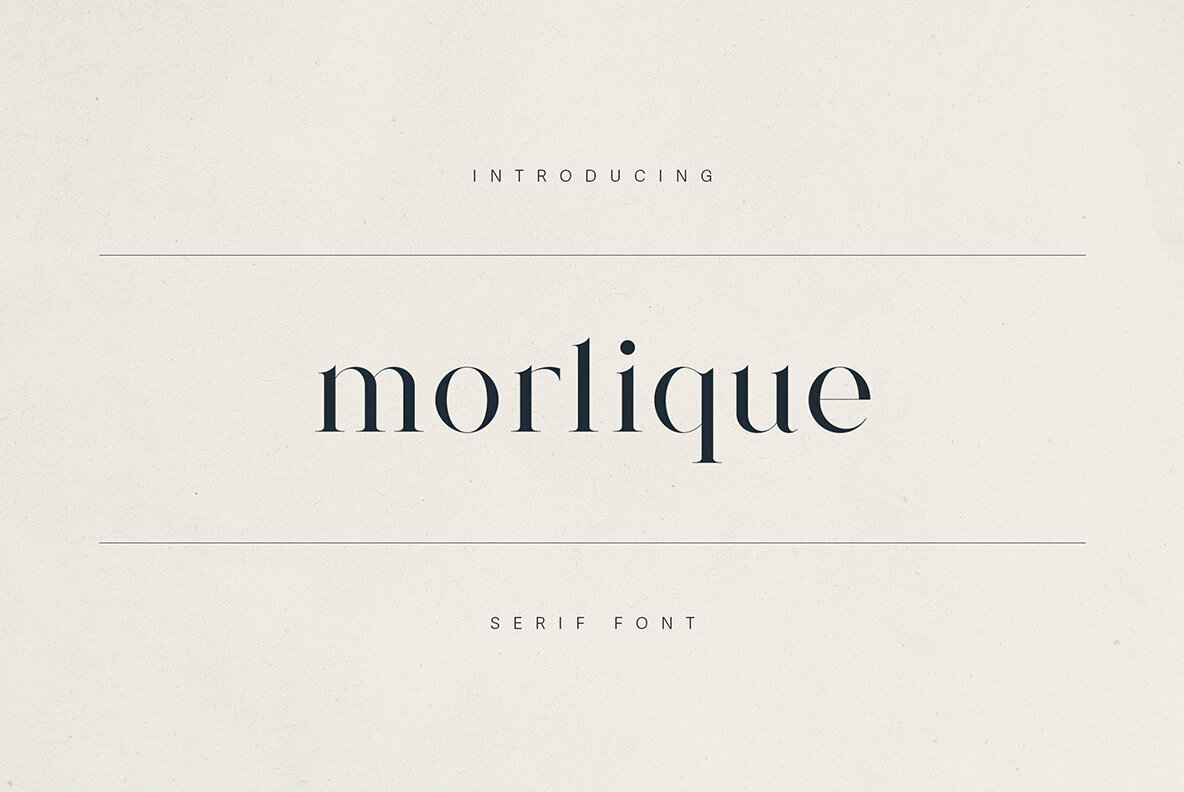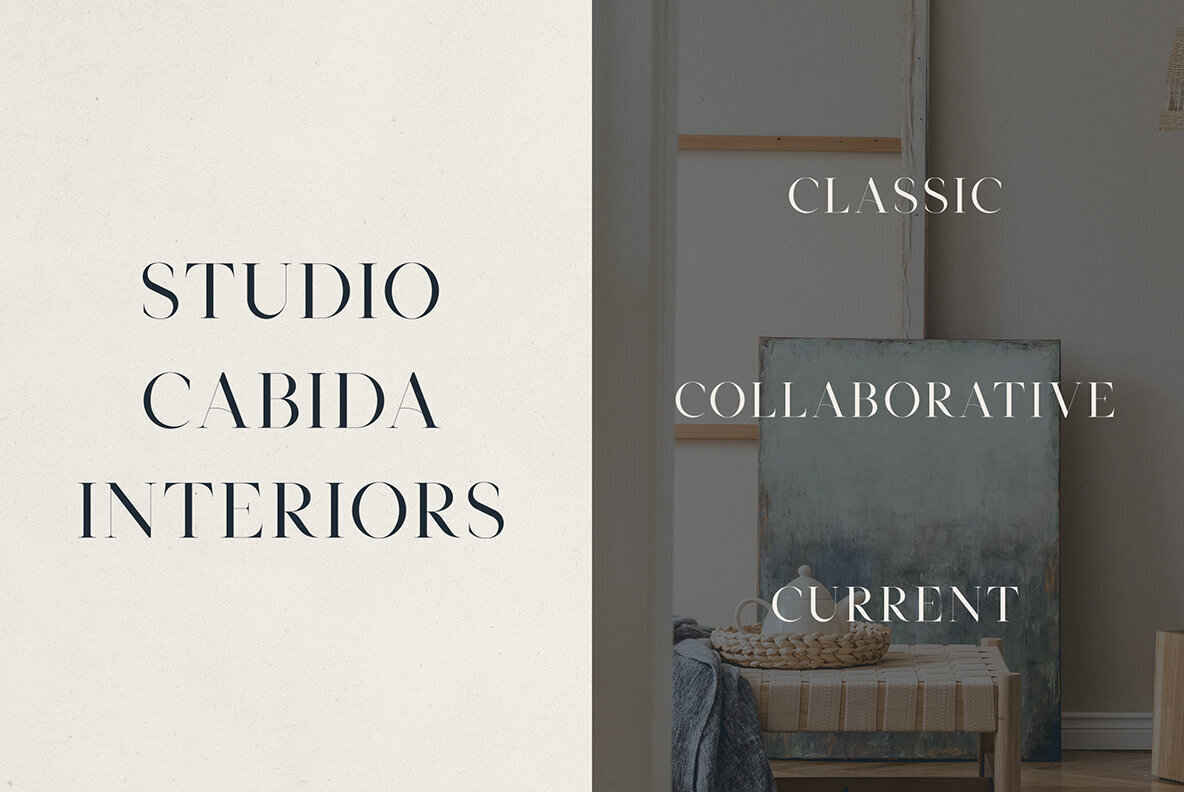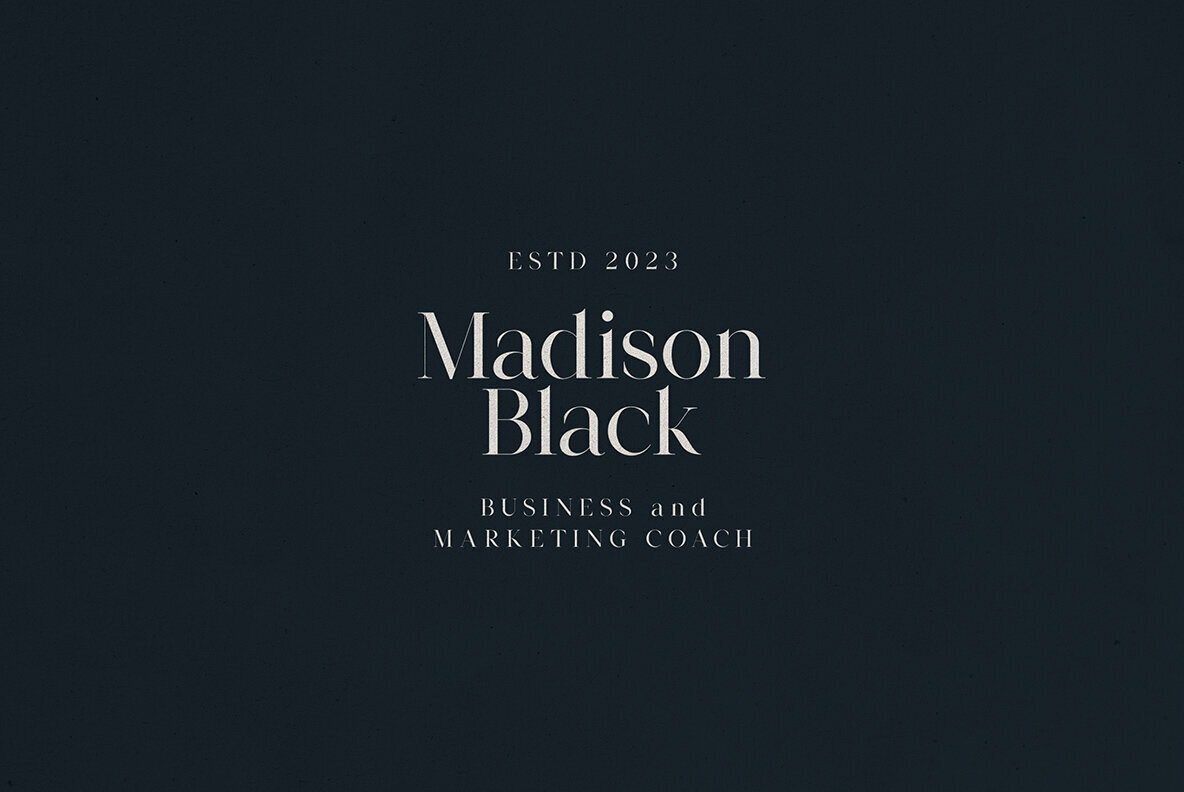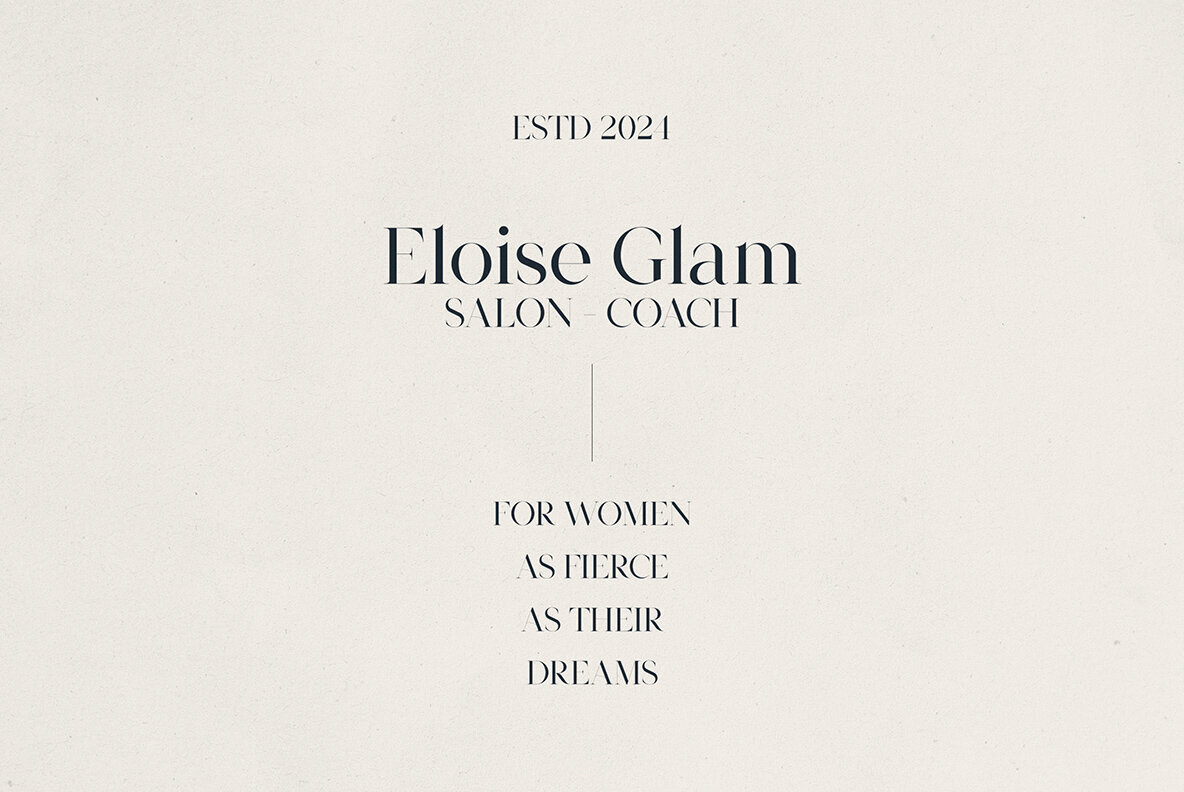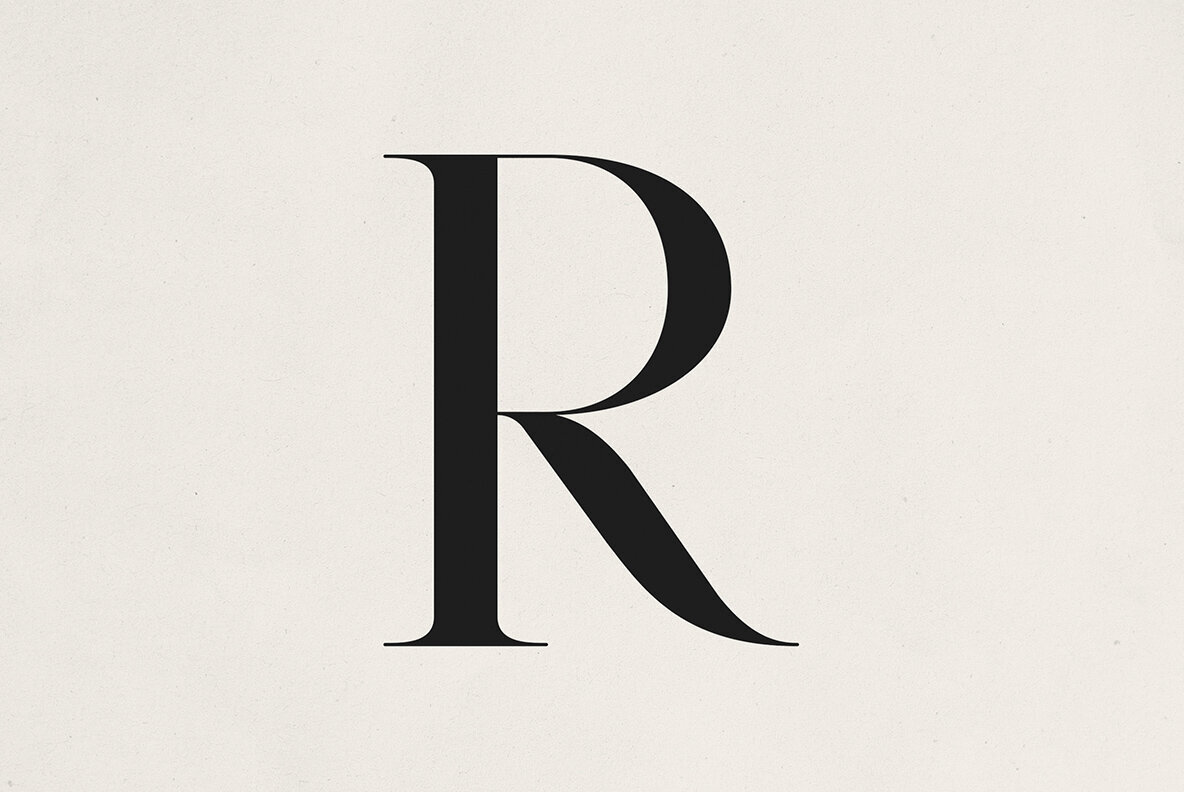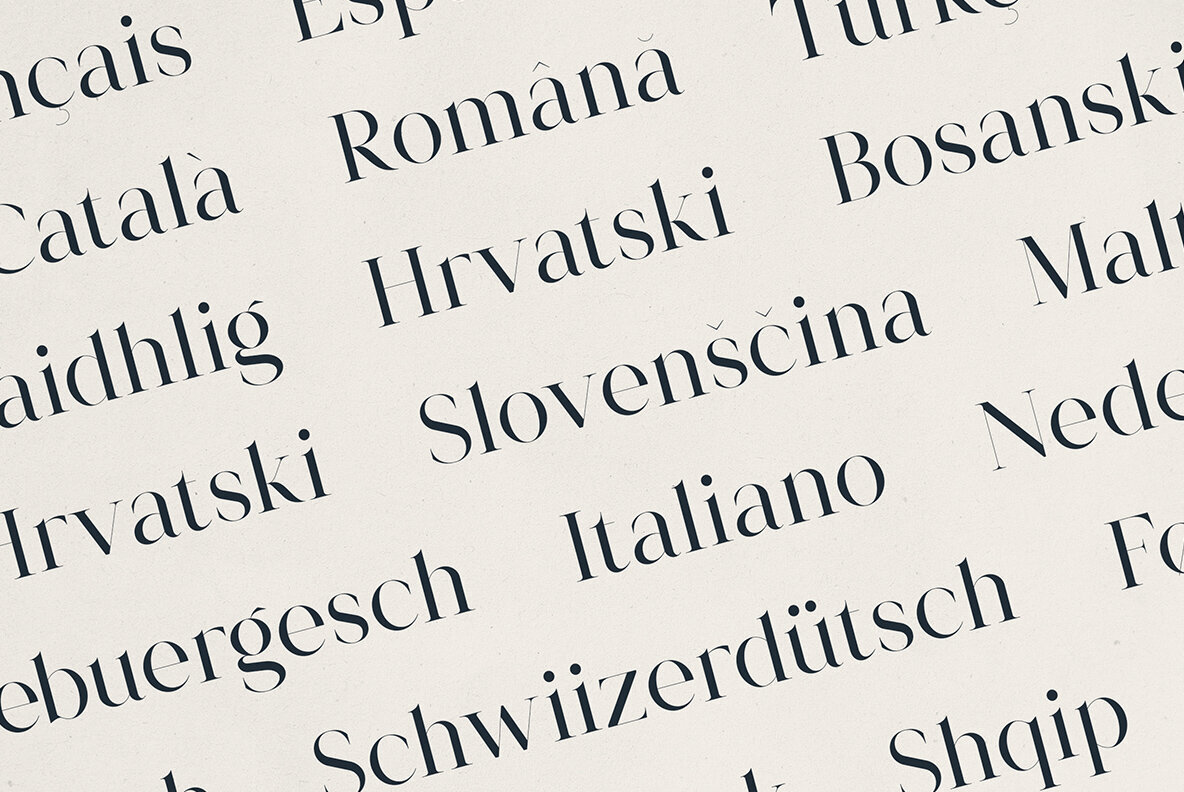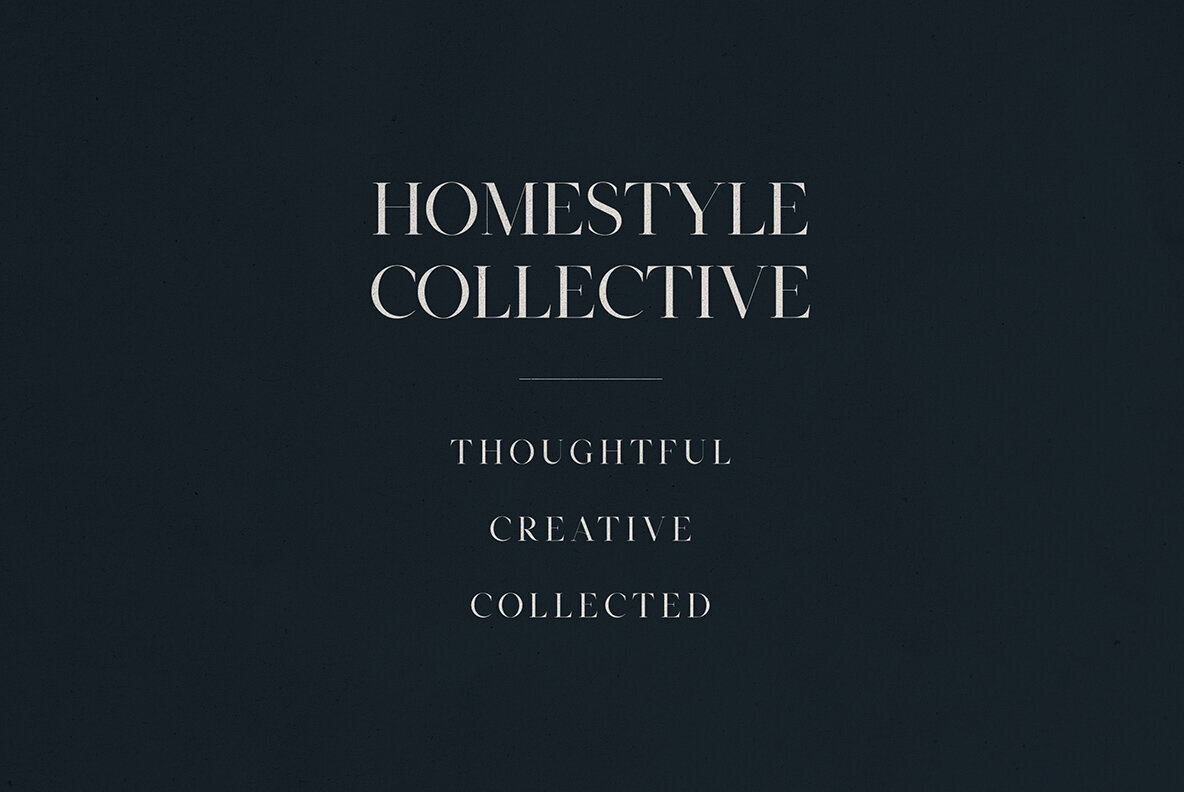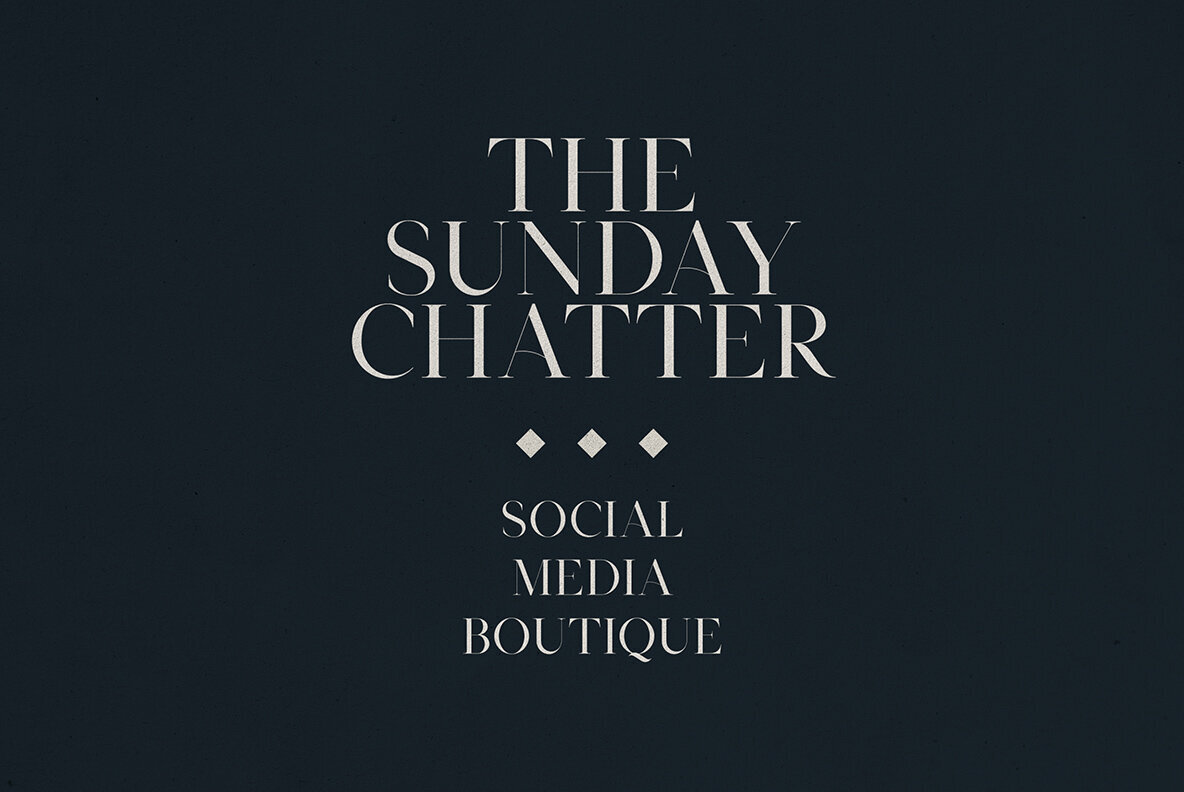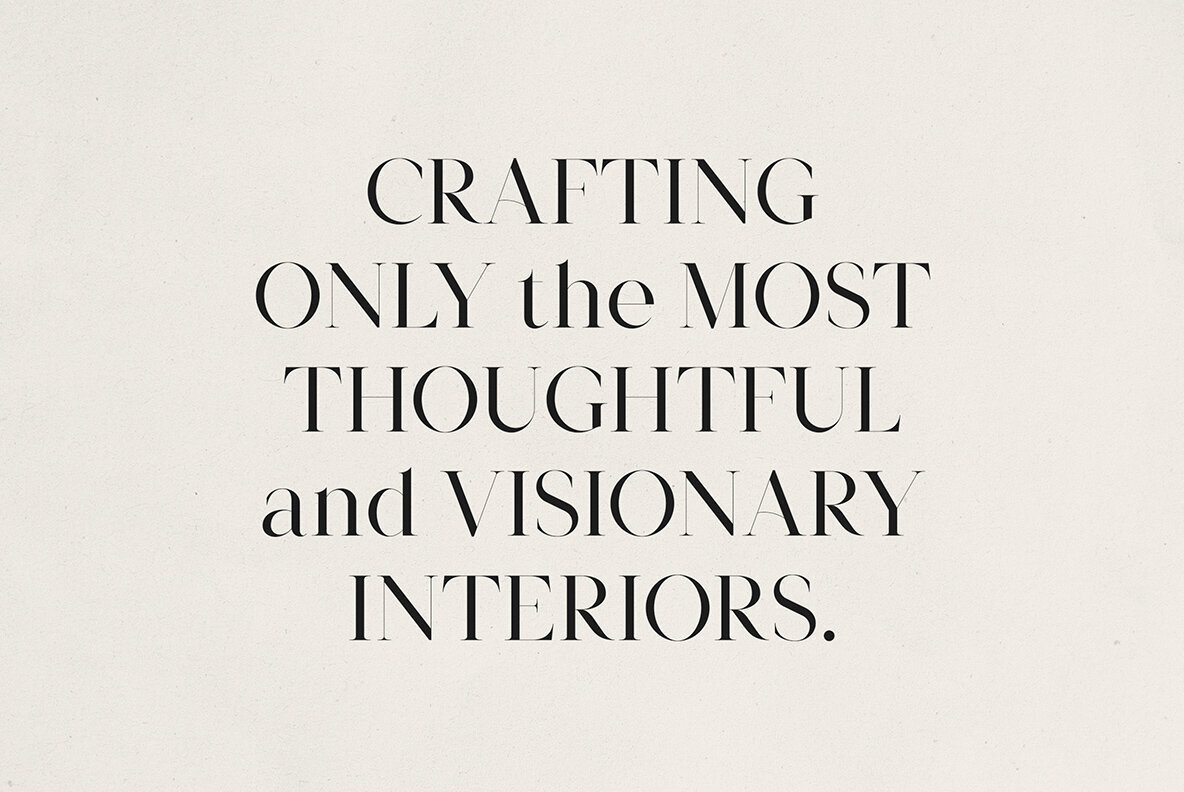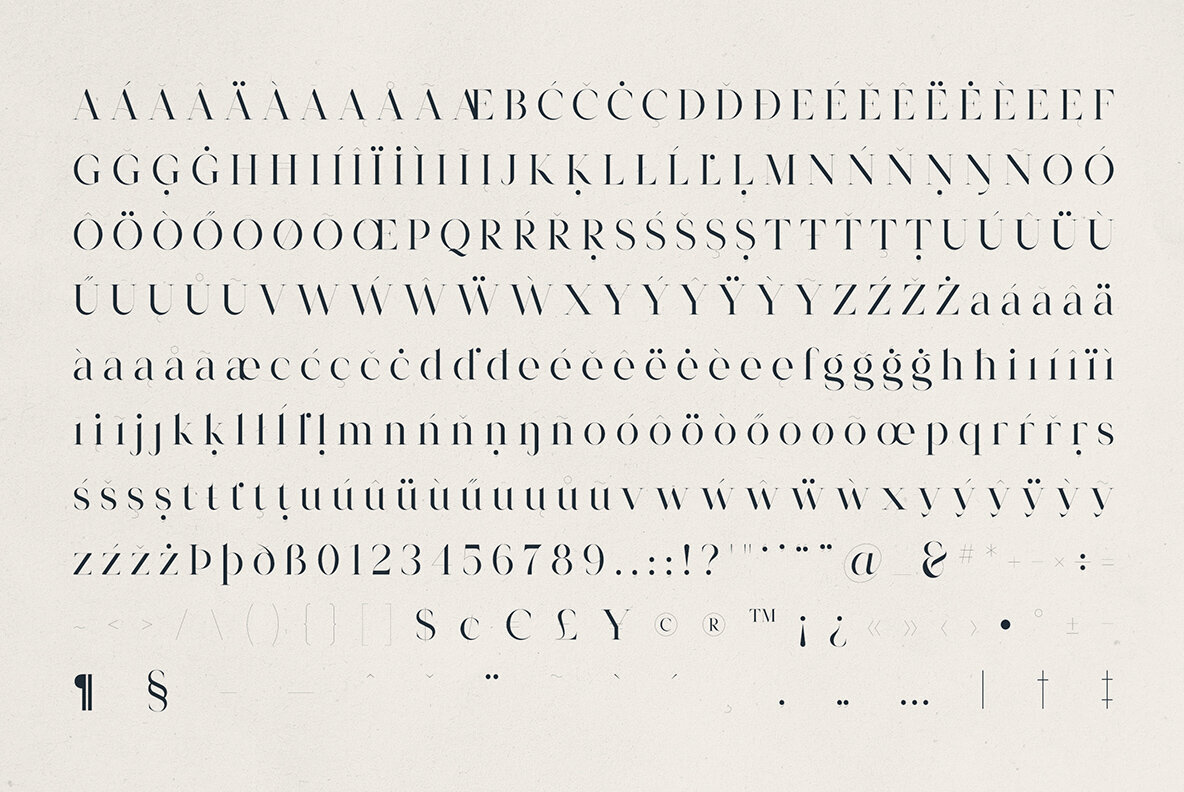
Morlique Font
Morlique
Discover Morlique, a high-contrast serif font that exudes elegance, refinement, and modern classic appeal. Perfect for branding, editorial design, logos, premium packaging, and creative enterprises, Morlique effortlessly combines graceful curves with confident serifs to deliver a timeless and luxurious look. This versatile and distinctive font enhances your designs, making it ideal for those seeking a polished and elevated aesthetic.Morlique Serif Font: Elegant Typography for Sophisticated Design